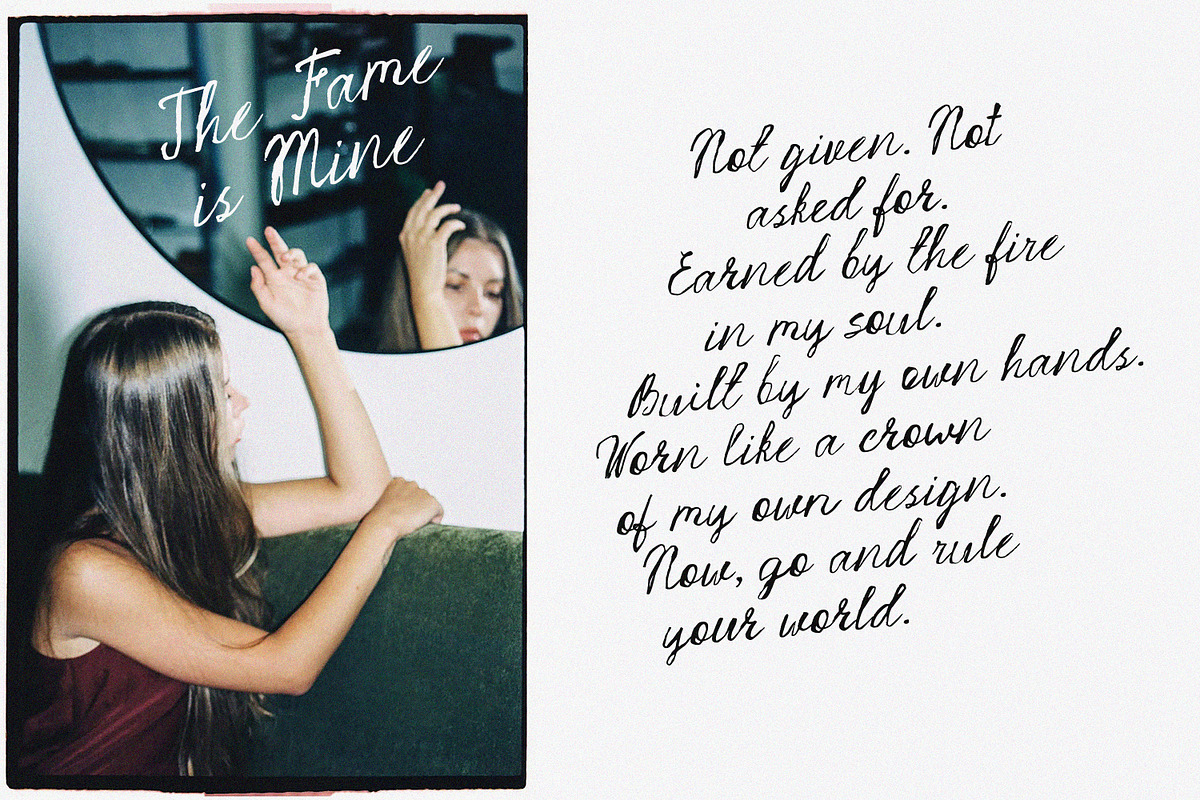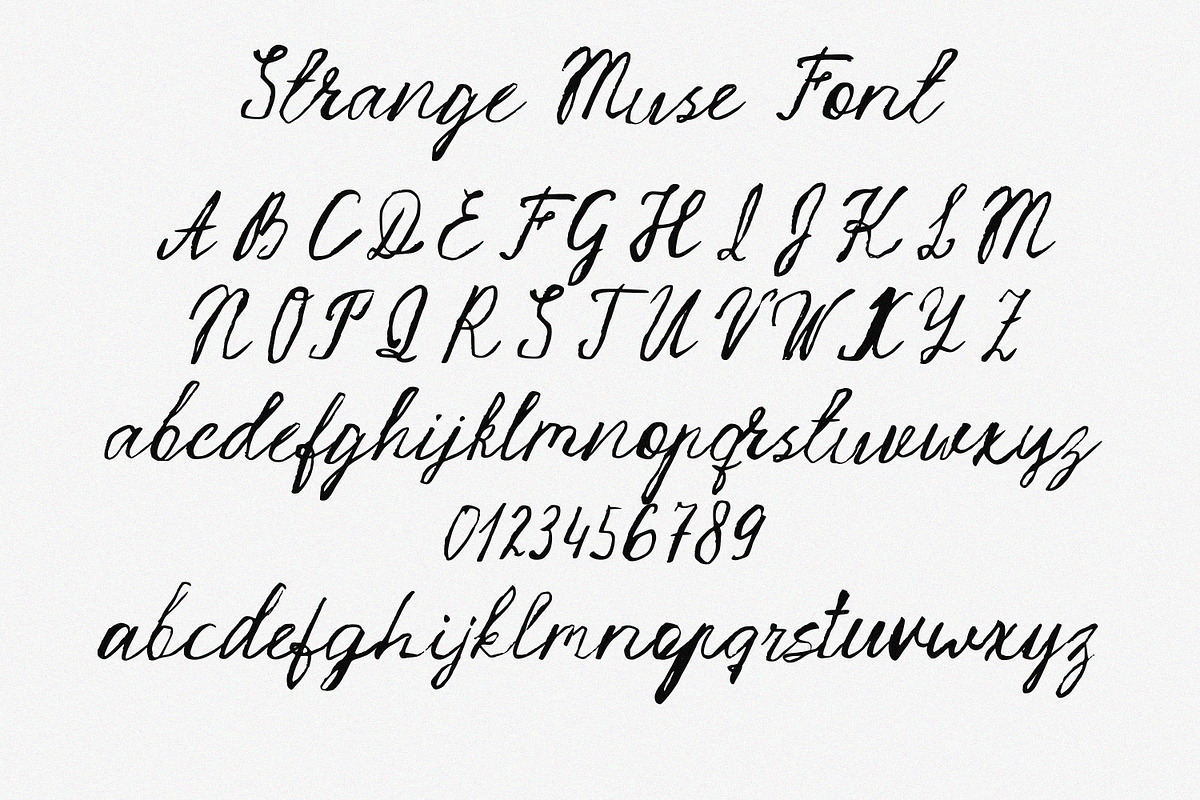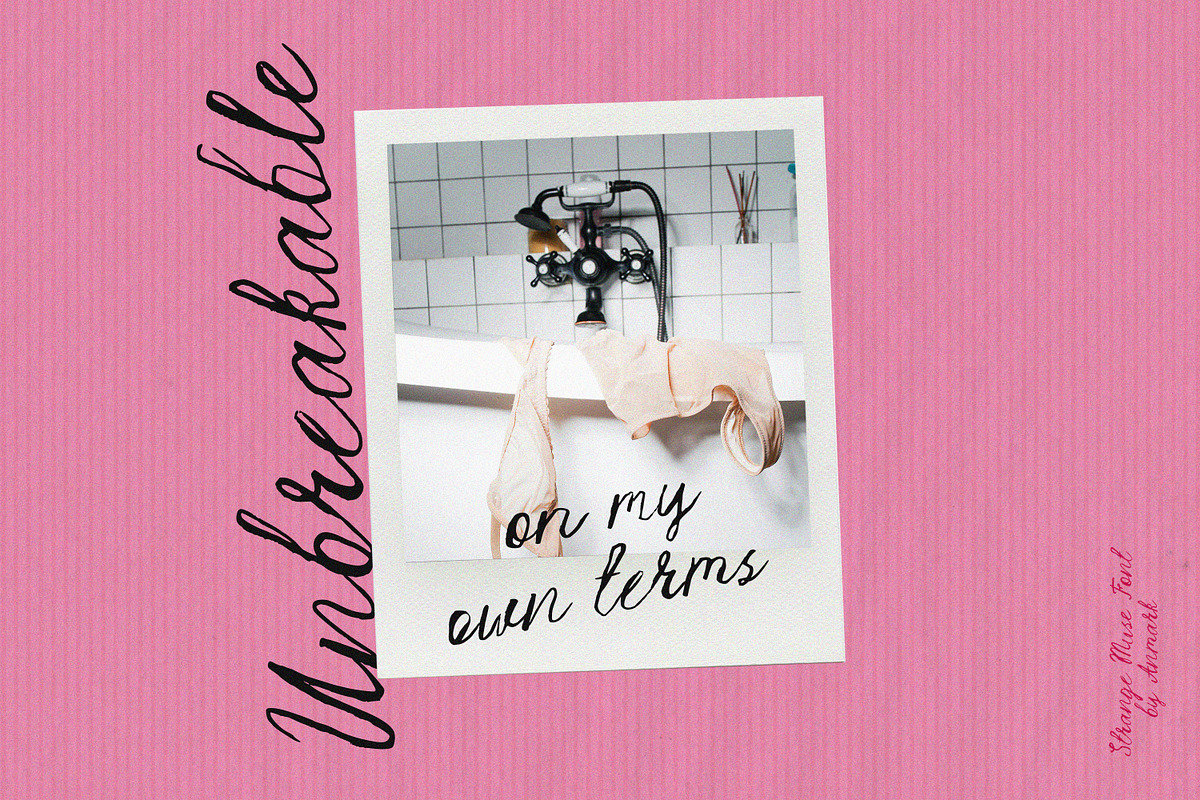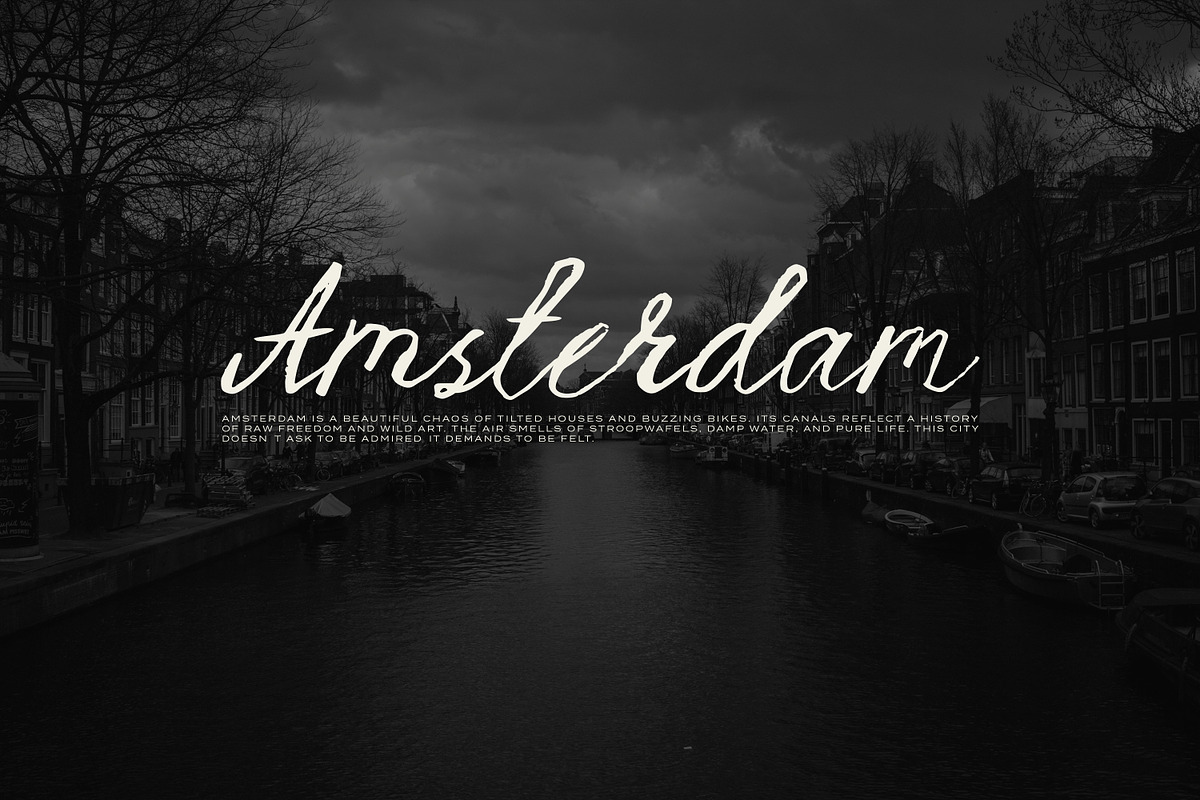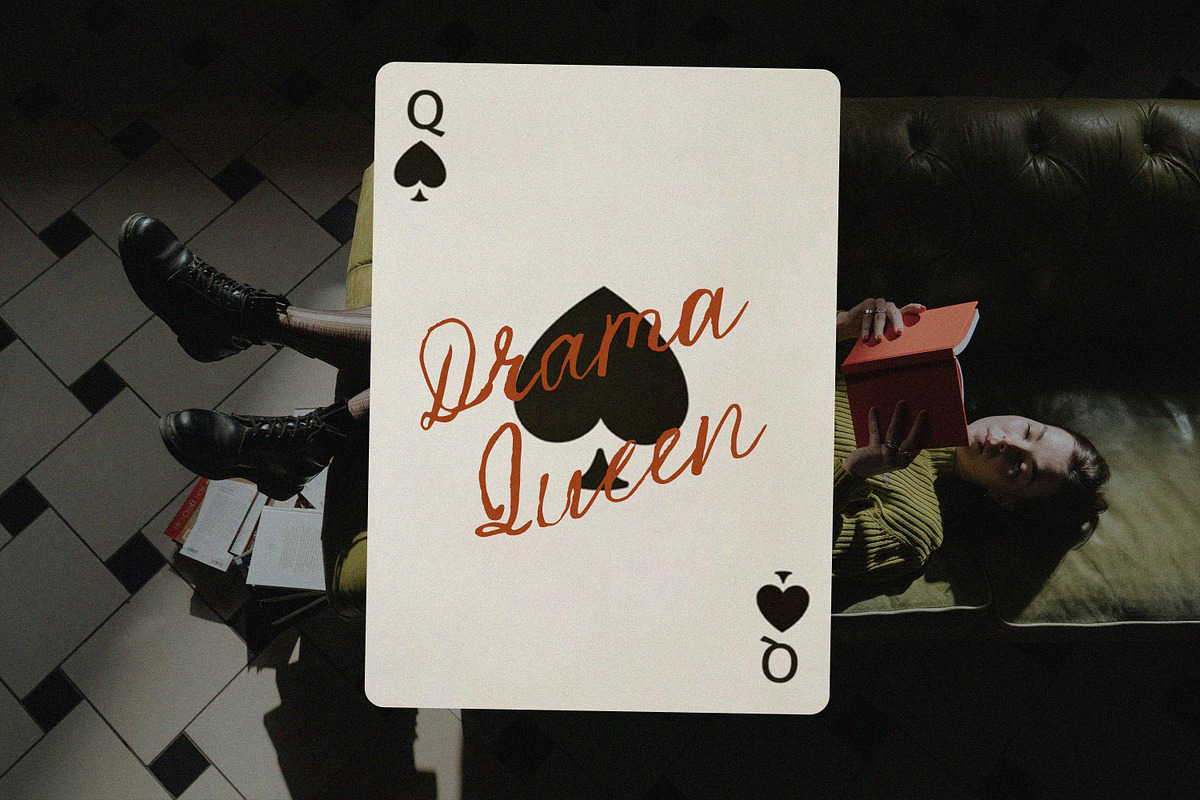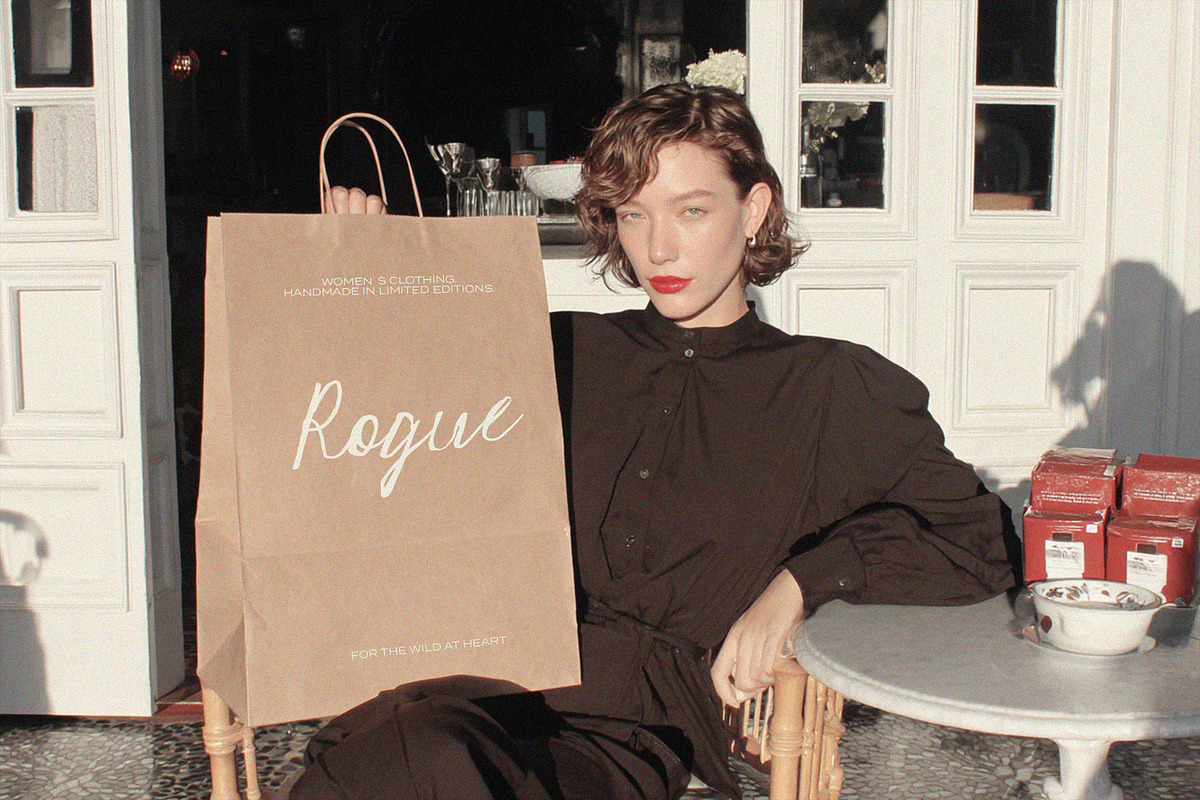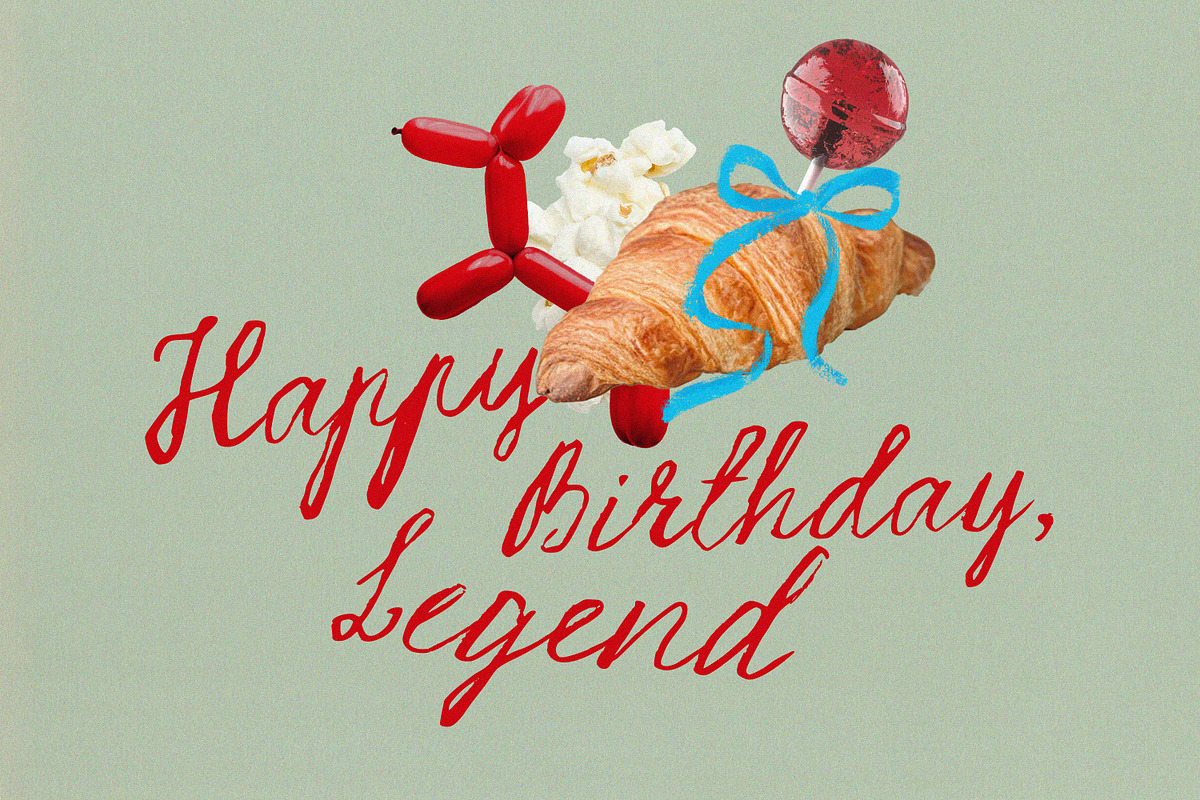
Strange Muse Messy Script Font
Strange Muse: Messy Handwritten Script Font
Strange Muse is a messy, inky, and rough script font that captures the energy of spontaneous handwriting. Designed to look raw and expressive, it brings a sense of emotion and imperfection that feels beautifully human.
This font includes stylistic alternates for lowercase letters, allowing you to mix and match for a more natural, hand-drawn look. Perfect for adding a touch of drama and personality to your designs.
Use Strange Muse for logos, wedding stationery, social media graphics, fashion branding, posters, quotes, packaging, or any creative project that needs a bold yet feminine handwritten touch.